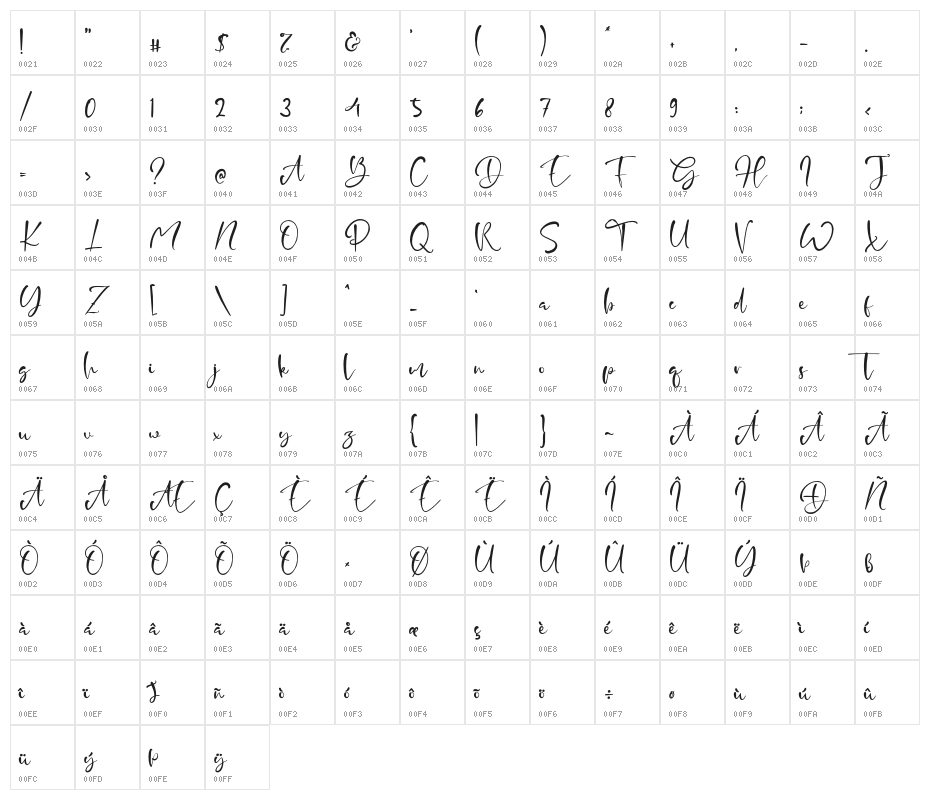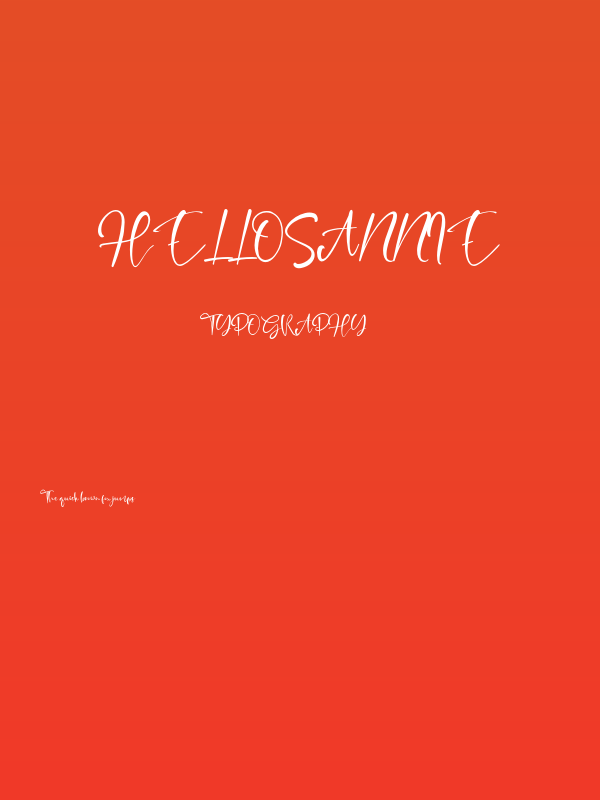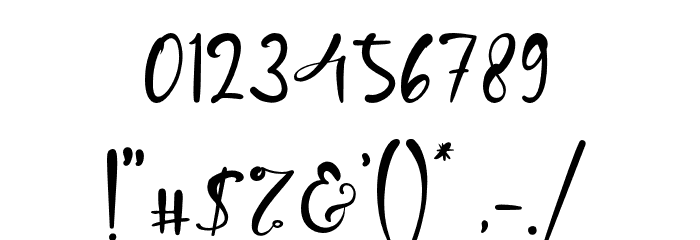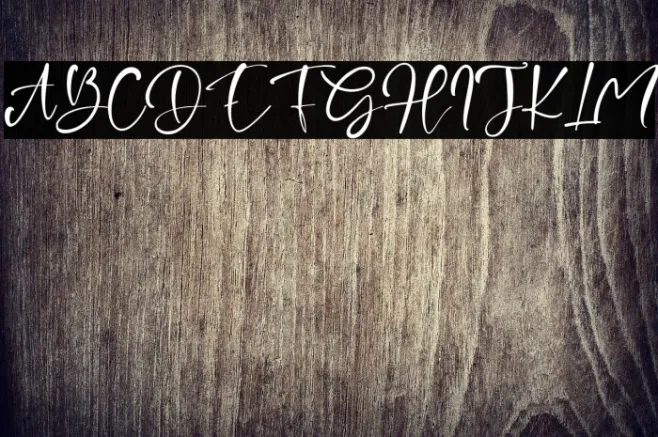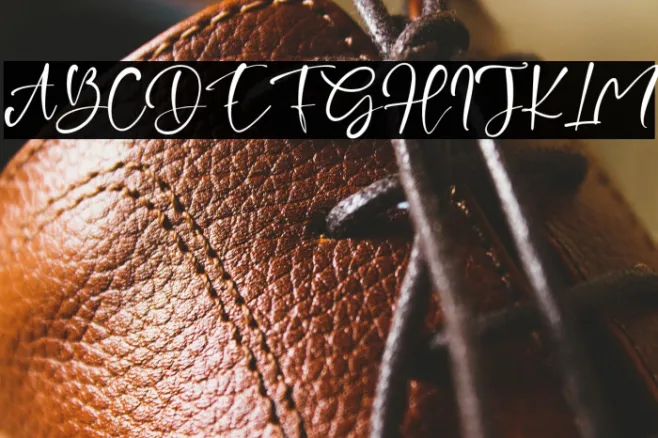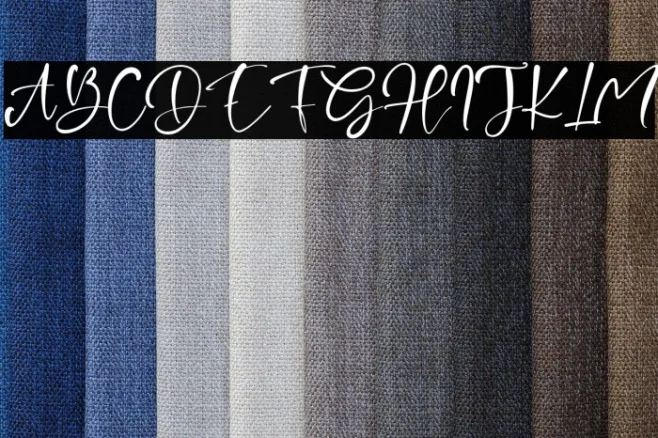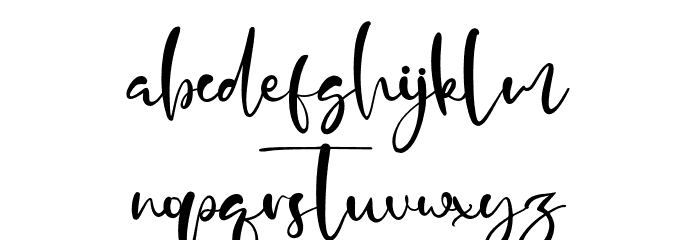
HelloSannie Font
HelloSannie Description
This font features a lively and expressive handwritten style, characterized by its fluid and dynamic strokes. The uppercase letters are elegantly connected, giving a sense of continuity and motion, while the lowercase letters maintain a playful and whimsical appearance. The numbers and special characters complement the overall aesthetic with their consistent, flowing design. The font's organic and casual feel makes it suitable for projects that require a personal touch, such as invitations, greeting cards, and creative branding. Its unique style stands out, making it ideal for capturing attention and conveying a sense of creativity and warmth.